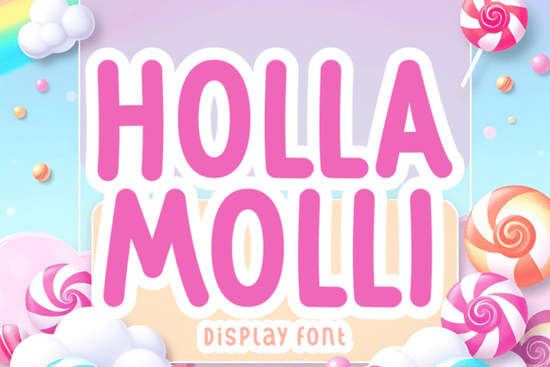
When you need a typeface that instantly communicates fun and energy, finding the right display option makes all the difference. The Holla Molli Font collection is designed specifically for creators who want to add a bubbly, cheerful touch to their work. Whether you are making logos for a candy shop or designing invitations for a child's birthday party, this set provides the playful characters needed to spark joy. It stands out because it balances readability with a distinct cartoon-inspired style that feels both modern and nostalgic.
What kind of projects work best with this style?
This typeface shines in environments where seriousness is not the goal. The rounded edges and bold shapes make it perfect for children's designs, kawaii themes, or crafting cheerful party banners. If you are working on a project that requires vibrant colors, you might find similarities between this style and other colorful display options available for seasonal campaigns. The weight of the letters ensures they remain visible even when printed on smaller items like stickers or tags.
Parents and crafters often look for specific themes when making personalized items. While this collection is versatile enough for any gender, you might also explore specific themes for boys if you need something slightly more structured for nursery decor. However, for general fun-loving T-shirt prints or packaging designs, the candy-like vibe of this font family adds a sweet element that customers love. It works well on mugs, tote bags, and wall art where a friendly impression is necessary.
How does it fit into a broader design toolkit?
Every designer needs variety in their library. You can find the full range at the official collection page, which allows you to see all the weights and styles included. Having access to multiple variations means you can use the bold version for headlines and a lighter version for subheaders without losing the thematic consistency. This versatility is crucial when building a brand identity that needs to feel approachable.
Sometimes, you need to mix styles to create visual interest. For a different playful vibe, check out similar playful styles that might complement your layout. Contrast is key in typography. If you are designing a wedding invitation or a feminine product label, you might want to pair these bubbly letters with something softer. In those cases, combining them with dainty romance fonts can create a balanced look that feels both fun and elegant. This technique helps you appeal to a wider audience without sacrificing the core personality of your design.
Is it suitable for cutting machines and stickers?
One of the most common questions from crafters is whether a font works well with cutting machines. The Holla Molli set includes sticker and Cricut fonts that stand out for any crafting project. The characters are spaced appropriately to prevent thin lines from breaking during the weeding process. This makes it a reliable choice for vinyl decals, scrapbooking, and custom planner stickers.
- Check Licensing: Always review the license terms to ensure commercial use is allowed for your specific platform.
- Test Readability: Print a sample at actual size to confirm the letters are easy to read from a distance.
- Pair Wisely: Use a simple sans-serif font for body text to let the display font shine as the headline.
- Color Contrast: Ensure there is enough contrast between the text color and the background material.